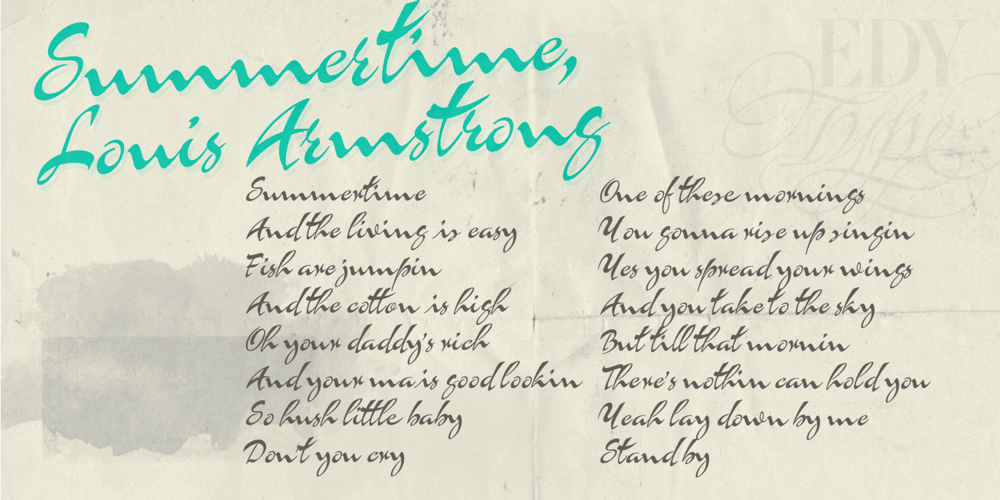
Drumbeat
Drumbeat font
Drumbeat Font Family was designed by Ricardo Rousselot and published by EdyType. Drumbeat contains 1 styles and family package options. DRUMBEAT, a brand new face from Edy Type, coming to help resolve the necessities of loose scripts in Packaging and Editorial Design. Its’ very particular thicks and thins and ups and down, makes it very suitable whenever informalities is required. Used with tiny little characters, enlarged to mammoth sizes or filling a large page with it, would show it’s perfect balance and color, almost as if where hand writen. In fact, a truly different script, a graphologist would declare that is written by a person very sure of what he wants, and besides and best of all, it’s pretty.